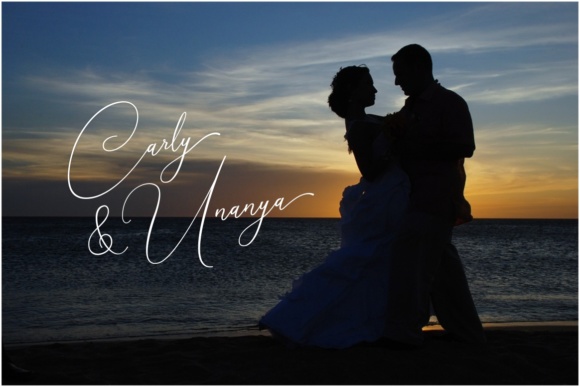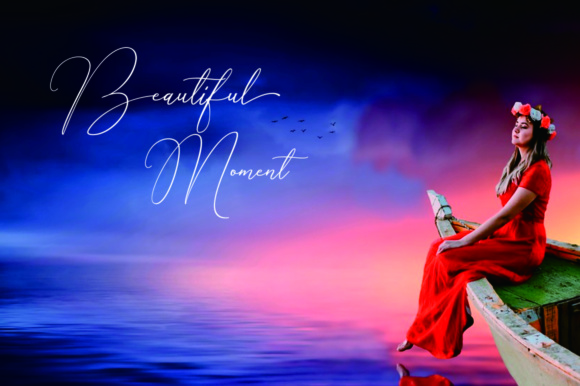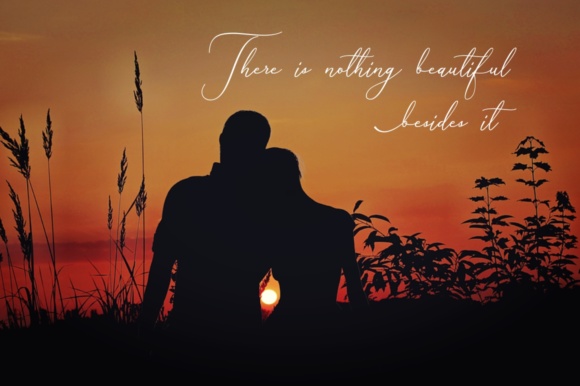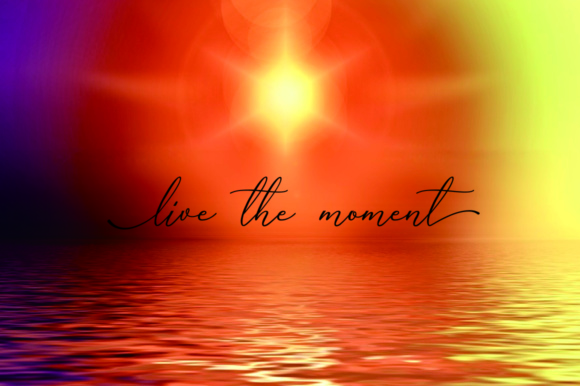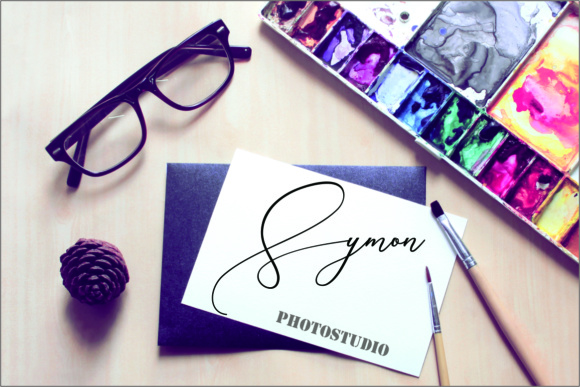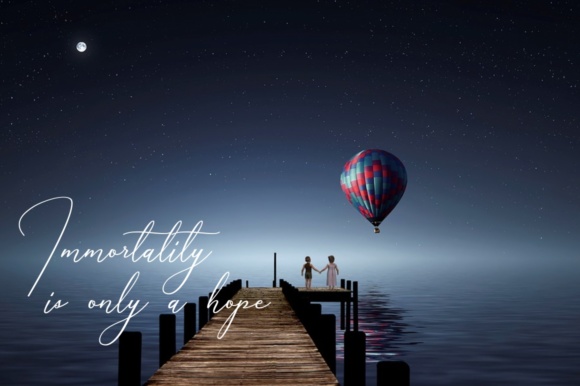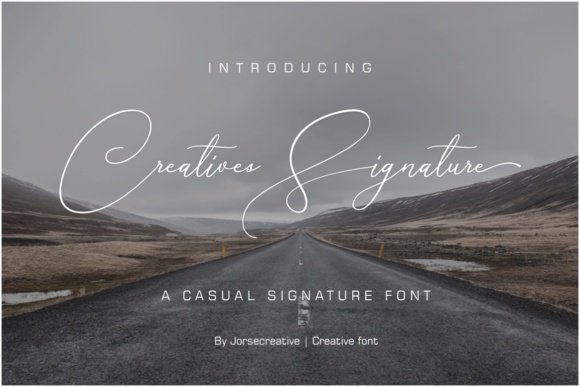
The Power of Creative Signature Fonts: Elevate Your Design with Elegance and Personality
In the world of design, typography plays a crucial role in conveying the tone and aesthetic of a project. Among the numerous font styles available, creative signature fonts have gained immense popularity for their unique ability to add a personal touch to designs. One such font that has caught the attention of designers and crafters alike is the Creative Signature font. This purely handwritten typeface boasts an elegant, feminine style with excellent readability, making it perfect for a wide range of applications.
What Makes Creative Signature Font Stand Out?
The Creative Signature font is distinguished by its own unique characteristics, which set it apart from other fonts in the same category. Its elegant and feminine style gives it a sophisticated look, making it an ideal choice for designers who want to add a touch of class to their projects. Whether you’re working on a blog, invitation, title, or signature, this font is sure to make a lasting impression.
Key Features of Creative Signature Font
- Elegant and Feminine Style: The Creative Signature font exudes elegance and femininity, making it perfect for designs that require a touch of sophistication.
- Good Readability: Despite its elegant style, the font maintains excellent readability, ensuring that your message is conveyed clearly and effectively.
- Purely Handwritten: The font’s handwritten nature gives it a personal and unique feel, making it perfect for adding a touch of personality to your designs.
- Versatile: The Creative Signature font can be used for a wide range of applications, including blogs, signatures, invitations, titles, and more.
Use Cases for Creative Signature Font
The Creative Signature font is an incredibly versatile font that can be used in various design projects. Here are some popular use cases:
- Blogs: Add a touch of elegance to your blog with the Creative Signature font. It’s perfect for headings, titles, and even body text.
- Signatures: Create a lasting impression with a beautiful signature font. The Creative Signature font is perfect for adding a personal touch to your email signatures, documents, and more.
- Invitations: Make your invitations stand out with the Creative Signature font. Its elegant style is perfect for wedding invitations, birthday parties, and other special occasions.
- Titles and Headings: Use the Creative Signature font to add a touch of sophistication to your titles and headings. It’s perfect for presentations, reports, and more.
Tips for Using Creative Signature Font Effectively
To get the most out of the Creative Signature font, here are some tips to keep in mind:
- Use it sparingly: While the Creative Signature font is elegant and sophisticated, it’s best to use it sparingly to avoid overwhelming your design.
- Pair it with other fonts: Experiment with pairing the Creative Signature font with other fonts to create a unique and visually appealing design.
- Adjust font size and color: Play around with font sizes and colors to create a design that’s both elegant and effective.
The Creative Signature font is a beautiful and elegant font that’s perfect for designers and crafters looking to add a touch of sophistication to their projects. With its unique characteristics, excellent readability, and versatility, it’s an ideal choice for a wide range of applications. By following the tips outlined above, you can use the Creative Signature font to elevate your design and create a lasting impression.